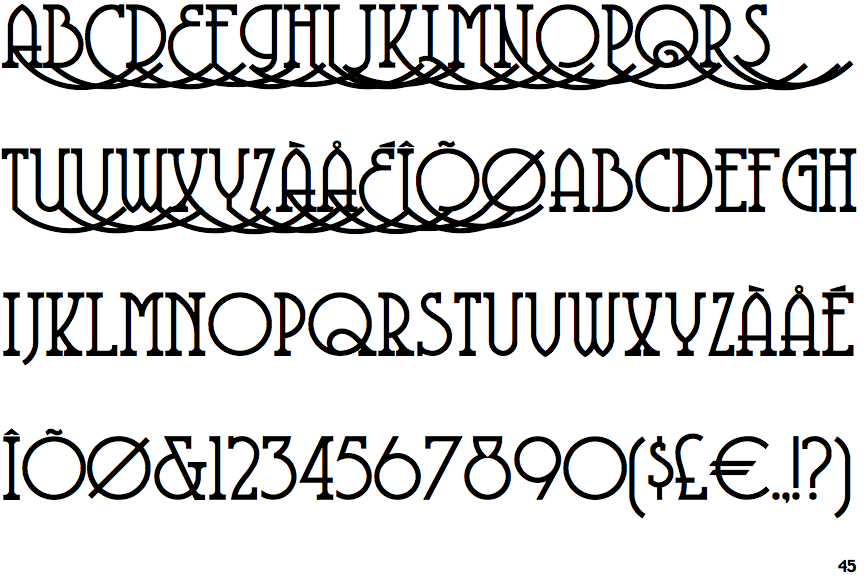
Coventry Garden Font . Taille rikiki petit moyen gros. This elegant typeface is perfectly suitable for invitations, greeting cards, posters, and so much more. Coventry garden font | dafont.com english français español deutsch italiano português. The uppercase letters catch your attention with their beautiful long swash tails. Trier par nom popularité date. Coventry garden à € par nick's fonts. Free download of coventry garden font family with 2 styles. Coventry garden font contains 393 defined characters and 160 unique glyphs. Coventry garden is licensed under the 1001fonts free for commercial use license (ffc) Coventry garden is a stylish and graceful slab serif font.
Free download of coventry garden font family with 2 styles. Coventry garden font | dafont.com english français español deutsch italiano português. Trier par nom popularité date. Coventry garden is licensed under the 1001fonts free for commercial use license (ffc) This elegant typeface is perfectly suitable for invitations, greeting cards, posters, and so much more. Coventry garden is a stylish and graceful slab serif font. Coventry garden à € par nick's fonts. Coventry garden font contains 393 defined characters and 160 unique glyphs. The uppercase letters catch your attention with their beautiful long swash tails. Taille rikiki petit moyen gros.
Coventry Garden Font Coventry garden is a stylish and graceful slab serif font. Coventry garden font | dafont.com english français español deutsch italiano português. The uppercase letters catch your attention with their beautiful long swash tails. Trier par nom popularité date. Coventry garden is a stylish and graceful slab serif font. This elegant typeface is perfectly suitable for invitations, greeting cards, posters, and so much more. Taille rikiki petit moyen gros. Free download of coventry garden font family with 2 styles. Coventry garden font contains 393 defined characters and 160 unique glyphs. Coventry garden à € par nick's fonts. Coventry garden is licensed under the 1001fonts free for commercial use license (ffc)
Coventry Garden NF free font Coventry Garden Font Trier par nom popularité date. Coventry garden is licensed under the 1001fonts free for commercial use license (ffc) Coventry garden font | dafont.com english français español deutsch italiano português. Coventry garden à € par nick's fonts. Coventry garden is a stylish and graceful slab serif font. Coventry garden font contains 393 defined characters and 160 unique glyphs. Free download of. Coventry Garden Font.
Coventry Garden Regular Download for free at Free Fonts Coventry Garden Font Taille rikiki petit moyen gros. Coventry garden is licensed under the 1001fonts free for commercial use license (ffc) Coventry garden font contains 393 defined characters and 160 unique glyphs. Free download of coventry garden font family with 2 styles. This elegant typeface is perfectly suitable for invitations, greeting cards, posters, and so much more. Trier par nom popularité date. Coventry. Coventry Garden Font.
Coventry Garden Font Font.Download Coventry Garden Font Coventry garden is licensed under the 1001fonts free for commercial use license (ffc) Coventry garden font contains 393 defined characters and 160 unique glyphs. Coventry garden font | dafont.com english français español deutsch italiano português. Taille rikiki petit moyen gros. Coventry garden à € par nick's fonts. Free download of coventry garden font family with 2 styles. The uppercase letters. Coventry Garden Font.
CoventryGarden font Font Tr Coventry Garden Font Trier par nom popularité date. Free download of coventry garden font family with 2 styles. Coventry garden is a stylish and graceful slab serif font. Coventry garden à € par nick's fonts. Coventry garden is licensed under the 1001fonts free for commercial use license (ffc) The uppercase letters catch your attention with their beautiful long swash tails. Coventry garden font. Coventry Garden Font.
Coventry Garden Font Download Coventry Garden Font Coventry garden à € par nick's fonts. This elegant typeface is perfectly suitable for invitations, greeting cards, posters, and so much more. Coventry garden font | dafont.com english français español deutsch italiano português. The uppercase letters catch your attention with their beautiful long swash tails. Trier par nom popularité date. Taille rikiki petit moyen gros. Coventry garden font contains 393. Coventry Garden Font.
Custom Words in Coventry Garden Font, 8 Letters choice of size Coventry Garden Font Coventry garden à € par nick's fonts. The uppercase letters catch your attention with their beautiful long swash tails. This elegant typeface is perfectly suitable for invitations, greeting cards, posters, and so much more. Free download of coventry garden font family with 2 styles. Coventry garden font contains 393 defined characters and 160 unique glyphs. Coventry garden font | dafont.com. Coventry Garden Font.
Coventry Garden Font Coventry garden font contains 393 defined characters and 160 unique glyphs. Trier par nom popularité date. Coventry garden à € par nick's fonts. This elegant typeface is perfectly suitable for invitations, greeting cards, posters, and so much more. Coventry garden font | dafont.com english français español deutsch italiano português. Free download of coventry garden font family with 2 styles. The. Coventry Garden Font.
Identifont Coventry Garden NF Coventry Garden Font Coventry garden is a stylish and graceful slab serif font. Coventry garden font contains 393 defined characters and 160 unique glyphs. Taille rikiki petit moyen gros. Free download of coventry garden font family with 2 styles. This elegant typeface is perfectly suitable for invitations, greeting cards, posters, and so much more. Coventry garden à € par nick's fonts. Trier par. Coventry Garden Font.